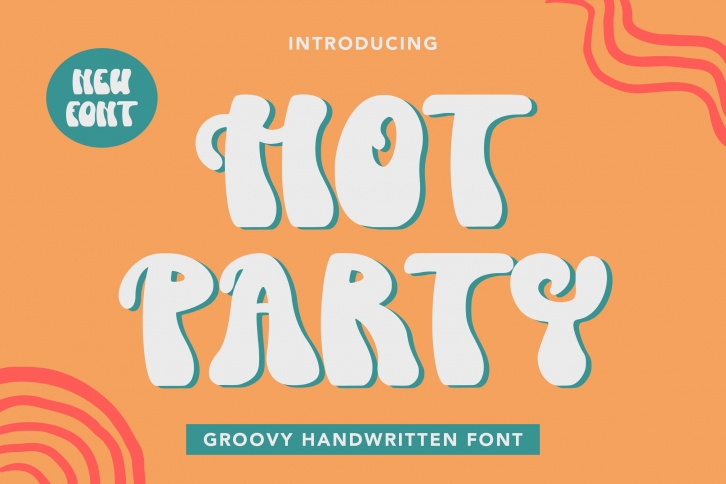
Hot Party is a cool and groovy looking display font, made with various characters. It is perfect for branding projects, logos, wedding designs, media posts, advertisements, product packaging, product designs, and more. Hot Party is PUA encoded which means you can access all of the glyphs and swashes with ease!